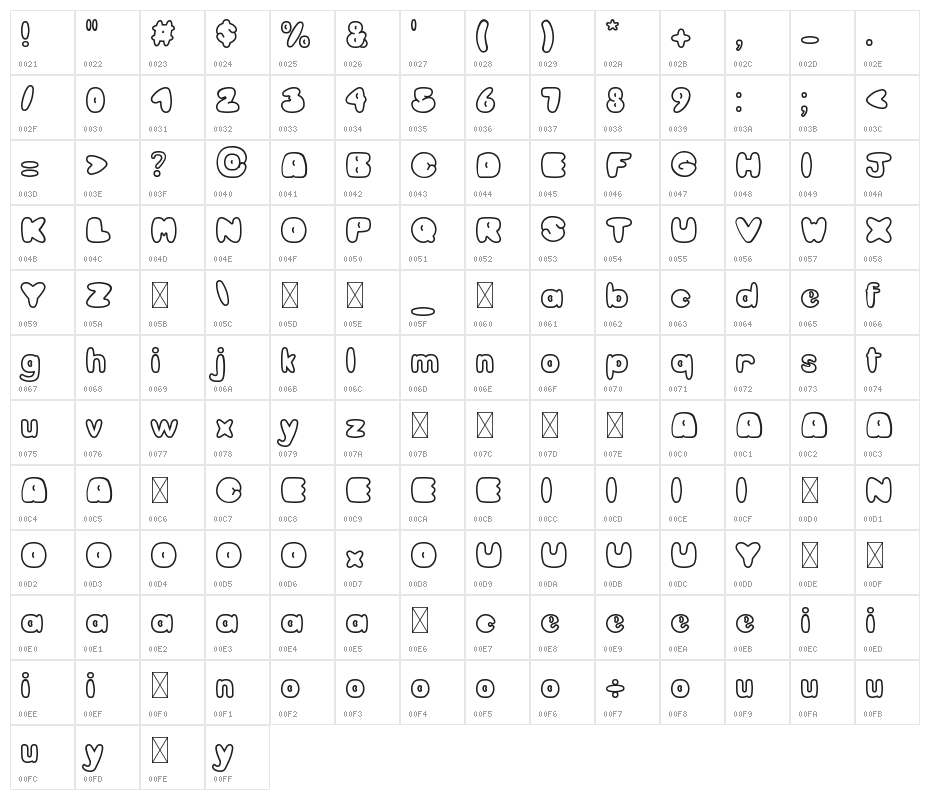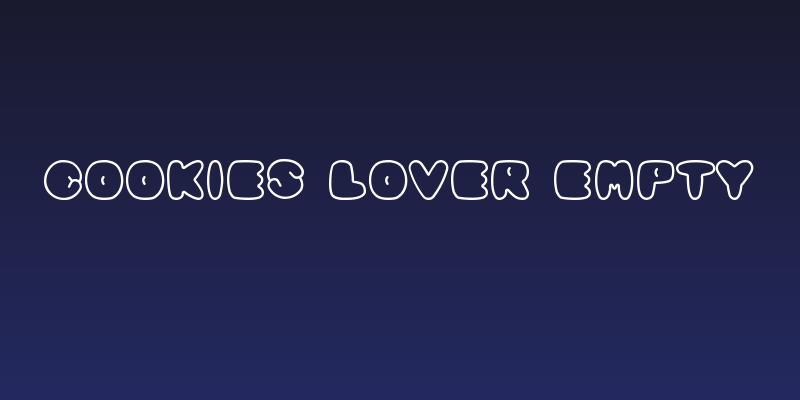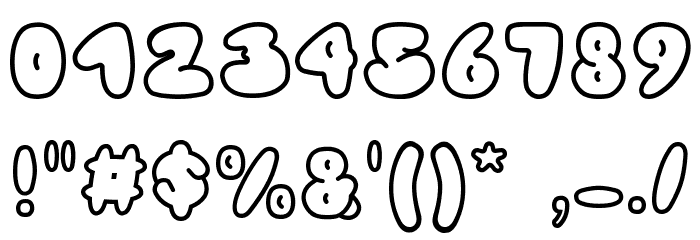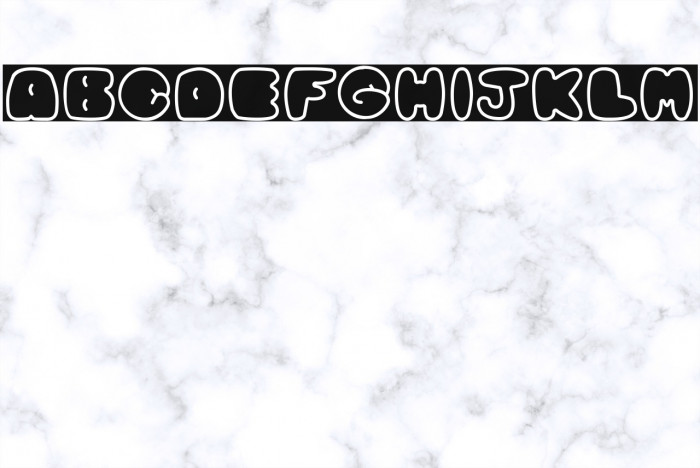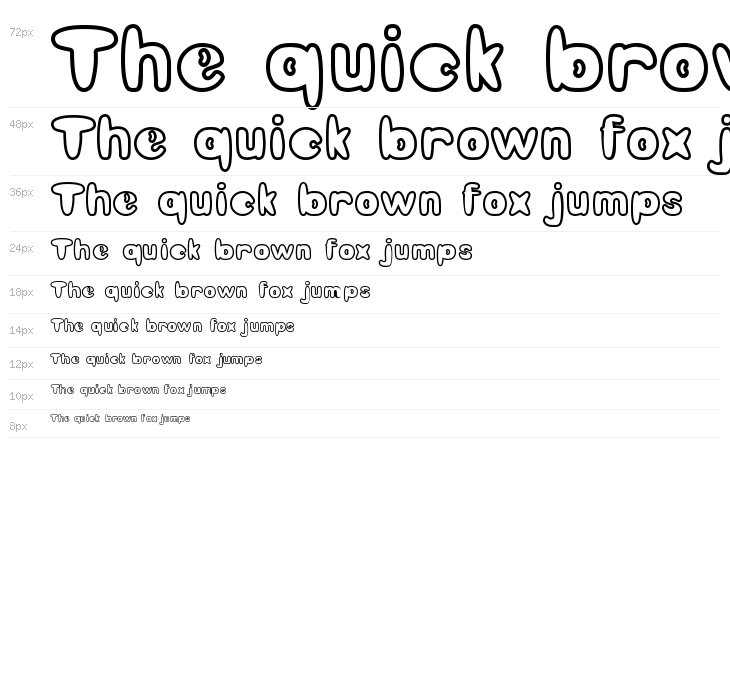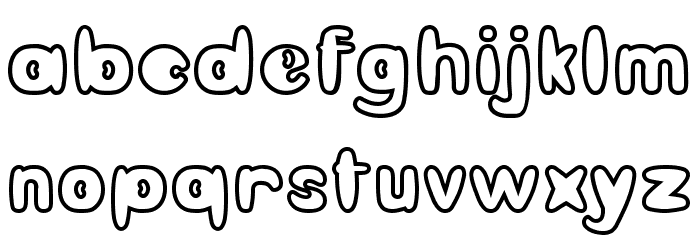
Cookies Lover Empty Font
Cookies Lover Empty Description
This playful and whimsical font features bold, rounded characters with a bubble-like appearance. Each letter and number is outlined, giving it a distinct, cartoonish style that is both fun and approachable. The font's design is consistent across uppercase, lowercase, and numerical characters, maintaining a uniform look. Special characters are also included, matching the overall playful theme. The font's thick outlines and rounded edges make it highly legible and suitable for a variety of creative projects.
| Overall Style | Playful, Cartoonish |
| Proposed Projects | Ideal for children's books, playful branding, party invitations, and cartoon-themed designs. |